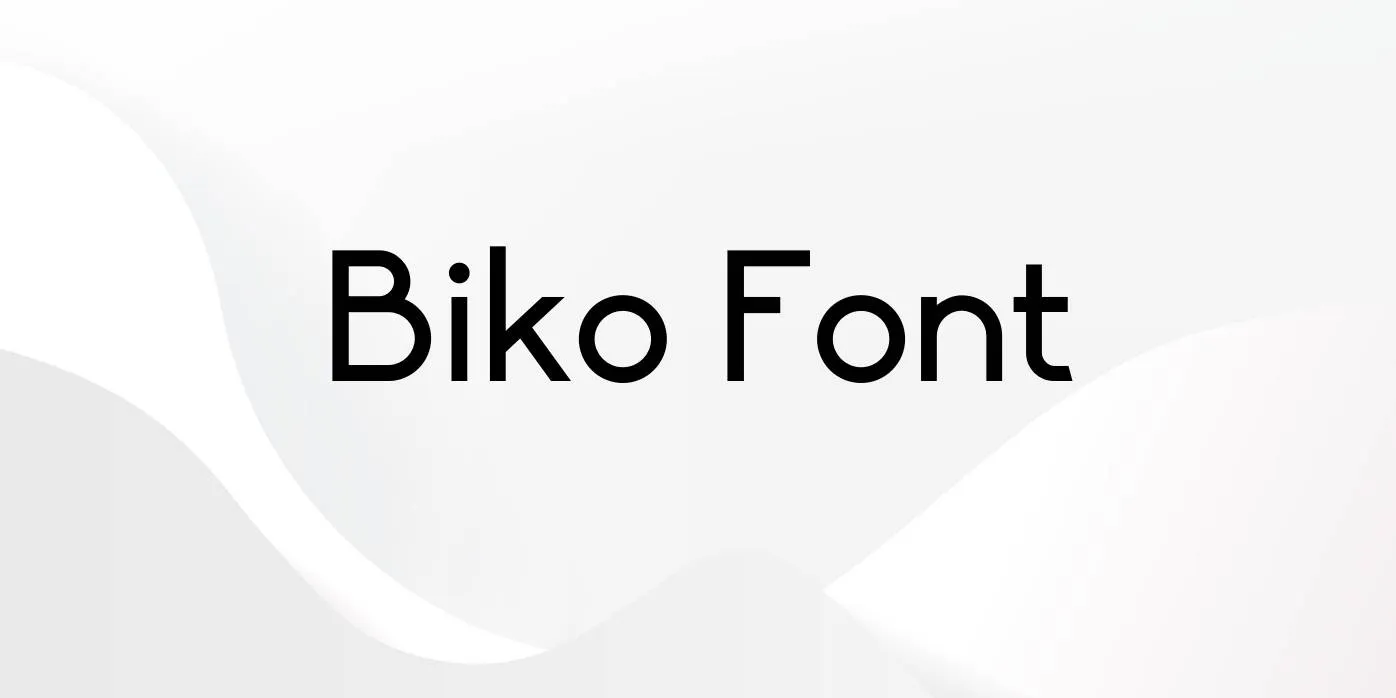
Biko Font
Here, we present a classy typeface known as Biko Font. This family belongs to the sans serif family. This typeface was designed by Marco Ugolini. He created this typeface in 2016.
You can specify this family for the CSS and SVG. This sans serif font consists of a regular style with a retro and vintage touch. Moreover, it supports multilingual characters. It is a great choice for headlines, logotypes, branding, and much more.
For more classic features, you will have to use its alternative santral font which has the same features. Biko Font has an elegant look that makes it perfect for luxury brands and high-end product packaging. Its sharp edges give it a modern look, while its curved terminals add a touch of sophistication. If you’re looking for a sans serif font with a bit of personality, Biko Font is a great option.
Its unique details will make your designs stand out from the crowd.